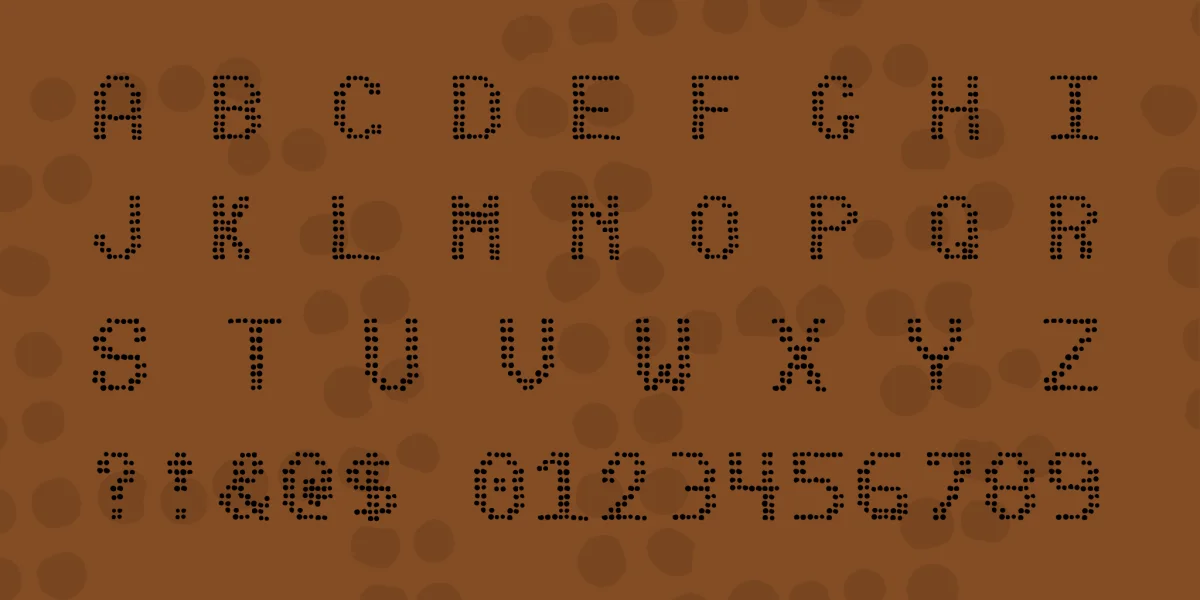
(Caps, numbers, punctuation, some special) is a typeface which mimics a pinball-type dot matrix display with slightly uneven dots. The font is excellent for headlines (caps only), and is best in large sizes. Includes all common punctuation and some special characters. Monospaced.